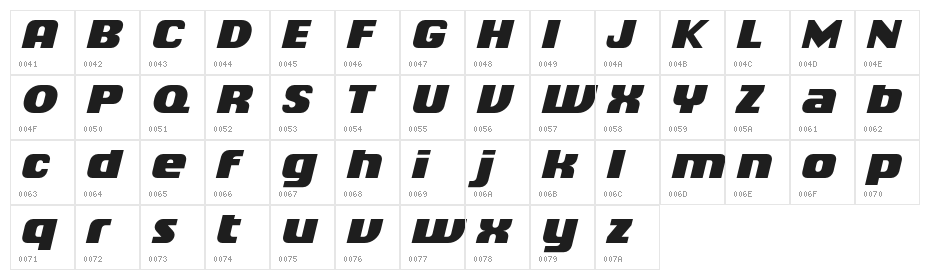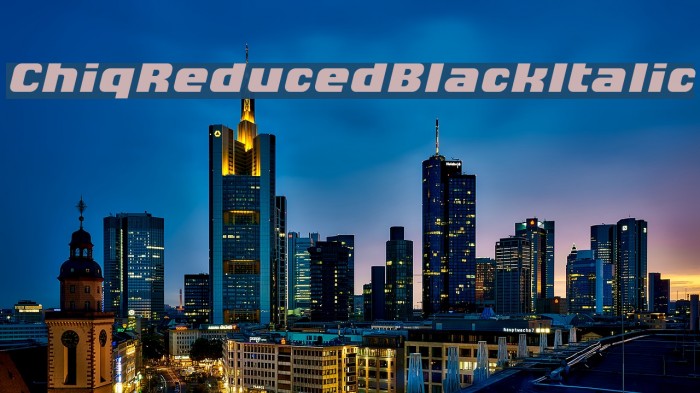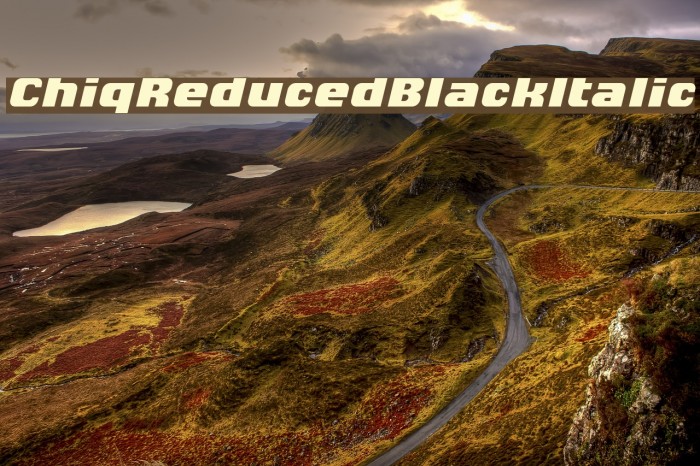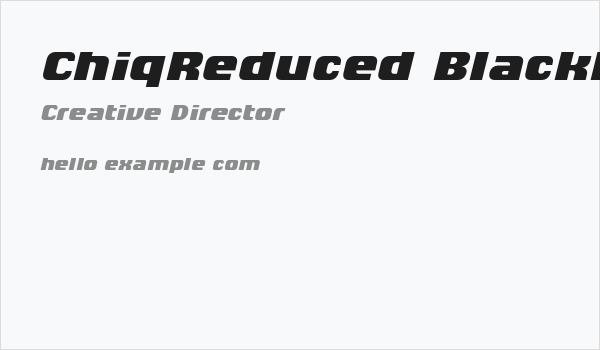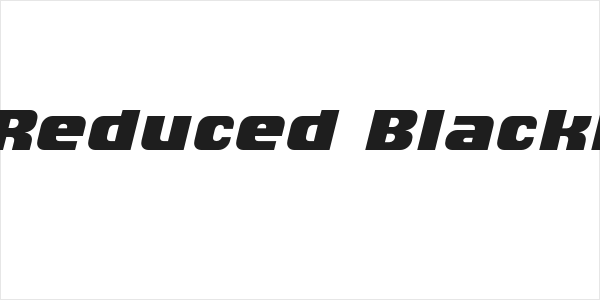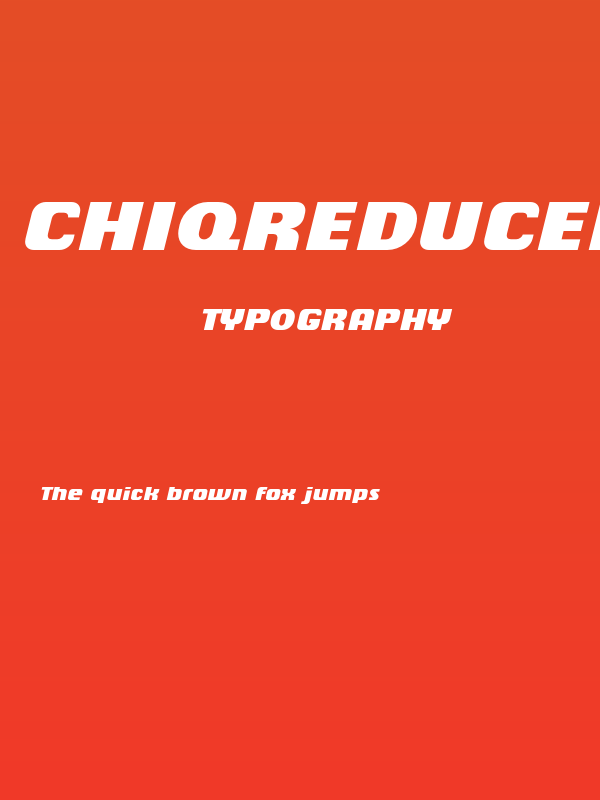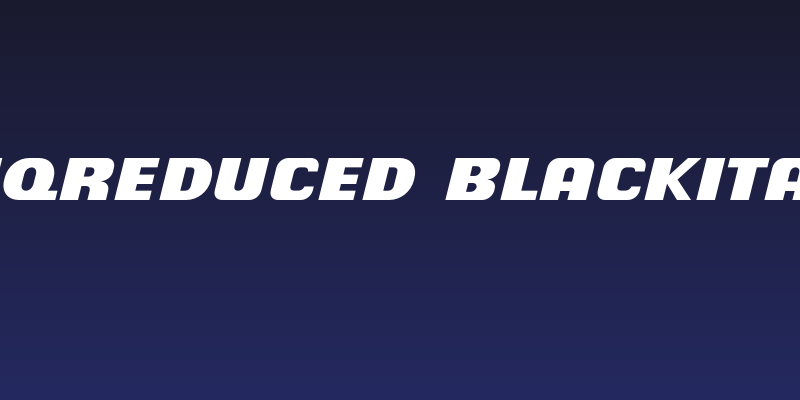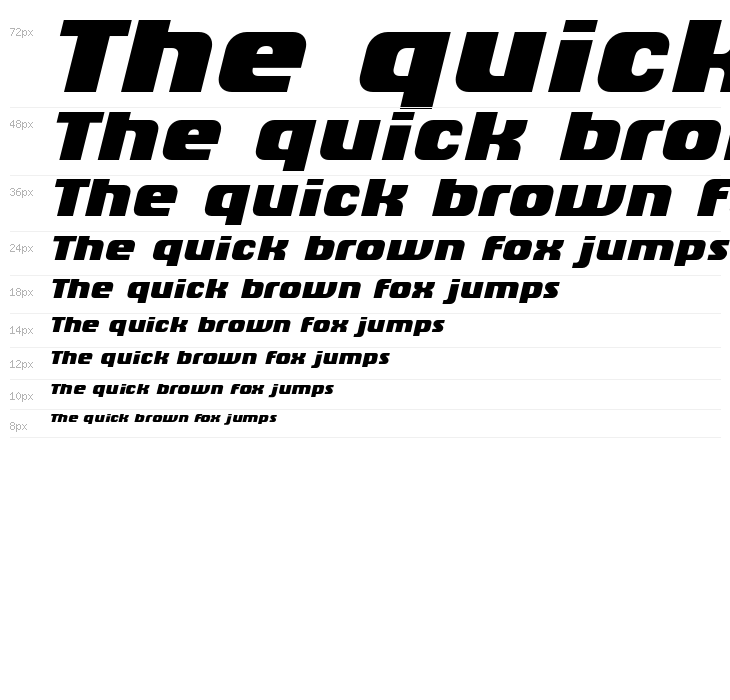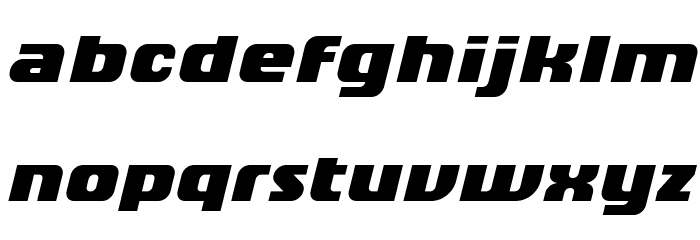
ChiqReduced-BlackItalic Font
ChiqReduced-BlackItalic Description
This font features a bold and italicized style with a modern and dynamic appearance. The characters are slightly condensed, giving a compact and powerful look. The strokes are thick and consistent, providing a strong visual impact. The slanted design adds a sense of movement and energy, making it suitable for attention-grabbing headlines or branding. The uppercase and lowercase letters maintain a uniform style, ensuring readability while maintaining a distinctive flair. The font's overall aesthetic is both contemporary and assertive, making it ideal for projects that require a bold statement.
| Proposed Projects | Ideal for branding, advertising, headlines, and any project requiring a bold, modern look. |